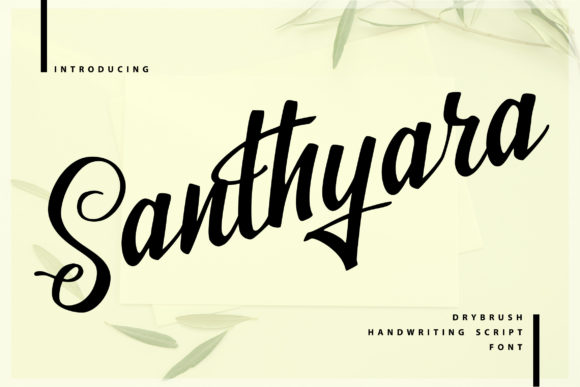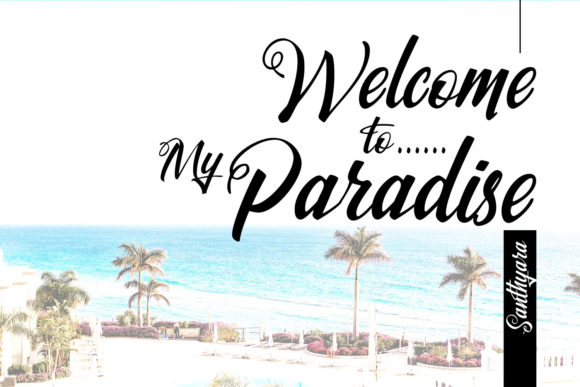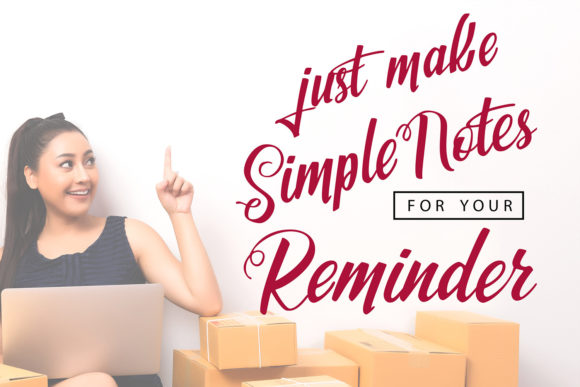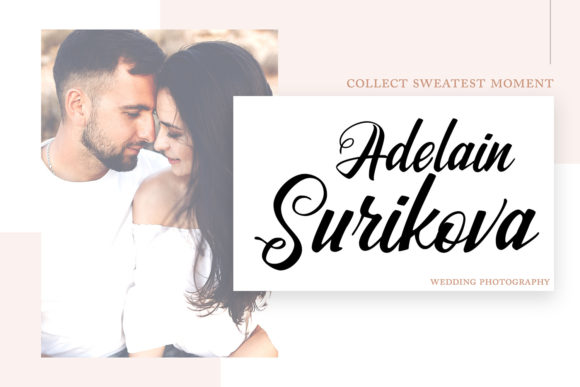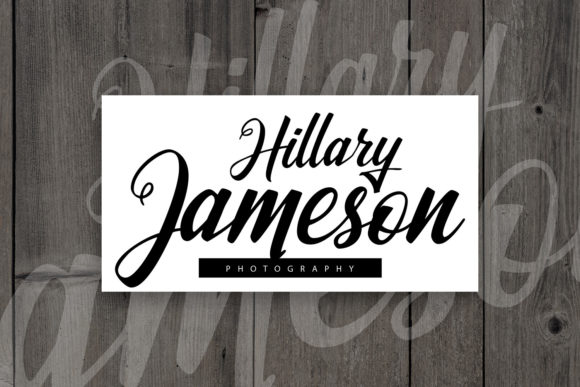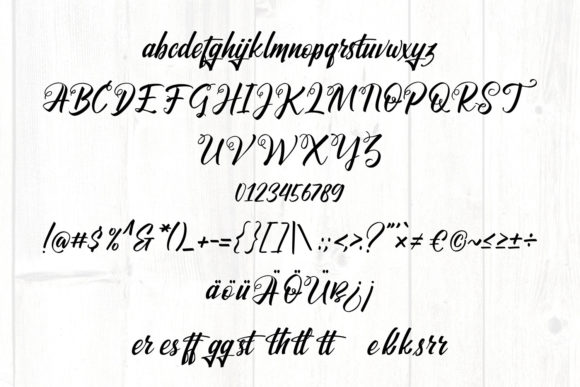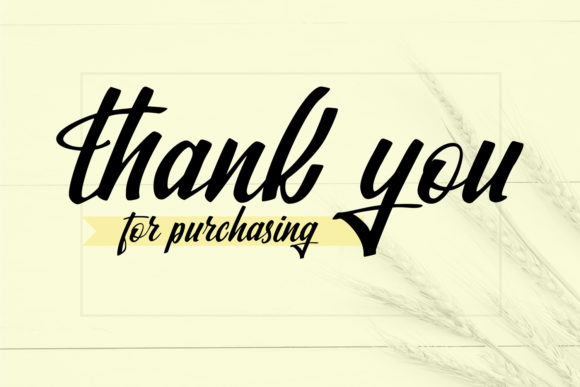
Santhyara Font
Santhyara is a truly remarkable handwritten font that exudes elegance and charm. Meticulously crafted, it strikes a perfect balance between classic calligraphic influences and a contemporary, fresh aesthetic. With its unique and exquisite letterforms, Santhyara is destined to become a favorite among designers and creatives.
The beauty of Santhyara lies in its versatility. It effortlessly combines the timeless elegance of calligraphy with a modern twist, making it suitable for a wide range of projects. Whether you’re designing wedding invitations, branding materials, packaging, or any other creative endeavor, Santhyara adds a touch of sophistication and refinement.
One of the standout features of Santhyara is its exceptional attention to detail. Every curve and flourish is carefully crafted, resulting in a font that feels both refined and expressive. The graceful strokes and delicate connections between letters create a harmonious flow that captures the eye and draws the viewer in.
Santhyara’s versatility extends beyond its beauty. It adapts effortlessly to different design styles, allowing you to create both elegant and contemporary compositions. The font’s exquisite design ensures that it stands out, making a lasting impression on any project it is used for.
Additionally, Santhyara offers a range of possibilities with its alternate characters and ligatures. These additional glyphs provide you with even more design options, allowing you to customize and tailor your typography to fit your vision perfectly. Whether you want to add a decorative swash to a headline or create a unique wordmark, Santhyara has the versatility to fulfill your creative desires.
In conclusion, Santhyara is an exquisite handwritten font that effortlessly combines classic calligraphic influences with a contemporary twist. Its meticulous design and attention to detail make it a true favorite among designers. Fall in love with Santhyara’s beauty and let it elevate your projects to new heights of elegance and sophistication.